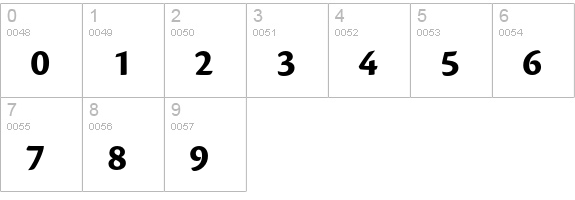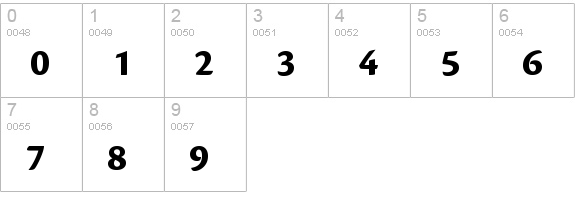
Cronos Pro Bold Caption Font Details
Cronos Pro Bold Caption is a strong, high-contrast variant in the Cronos typeface family \xE2\x80\x94 well suited to headlines, attention-grabbing titles, and strong calls-to-action.
Cronos Pro Bold Caption font is a versatile and modern typeface that exudes confidence and sophistication. Its bold and striking appearance makes it perfect for capturing attention and making a statement in various design projects. Whether used for headlines, titles, or social media graphics, Cronos Pro Bold Caption font is sure to make a lasting impression. And the best part? This stunning font is available for free download at FontsMarket.com, allowing you to add a touch of elegance to your creations without breaking the bank. Don't miss out on the opportunity to elevate your designs with the timeless appeal of Cronos Pro Bold Caption font – download it now and let your creativity shine!